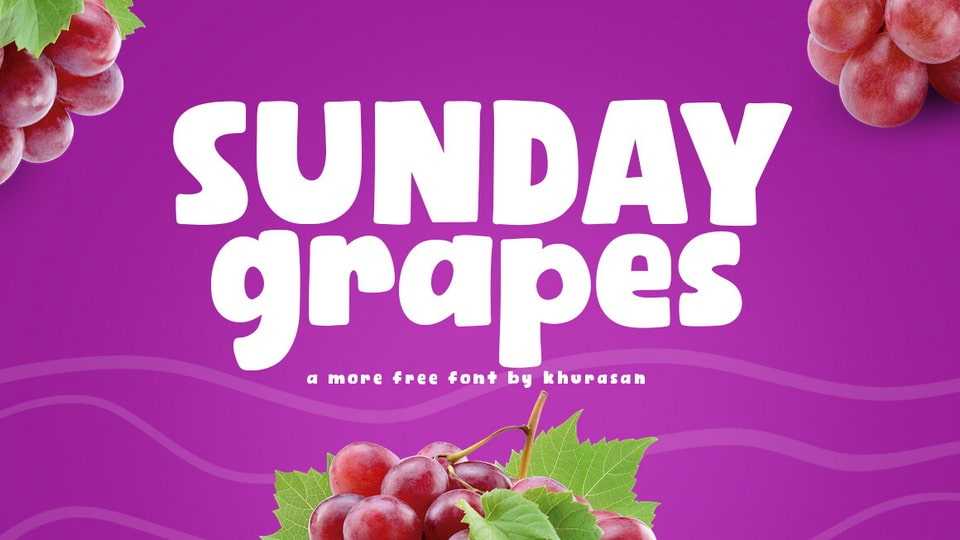
Download Sunday Grapes font, a typeface that brings vibrant, playful, and bold look to your designs. Each letter is a dynamic character in its own right, bursting with energetic movement and a vivid personality.